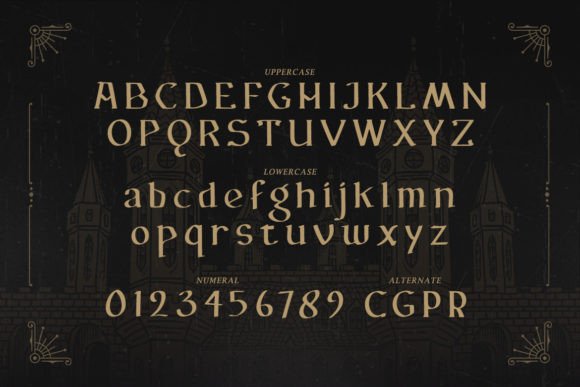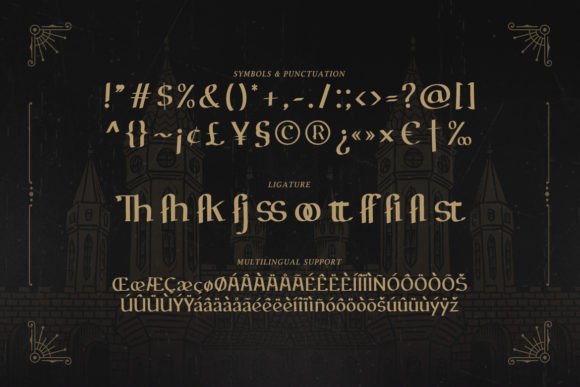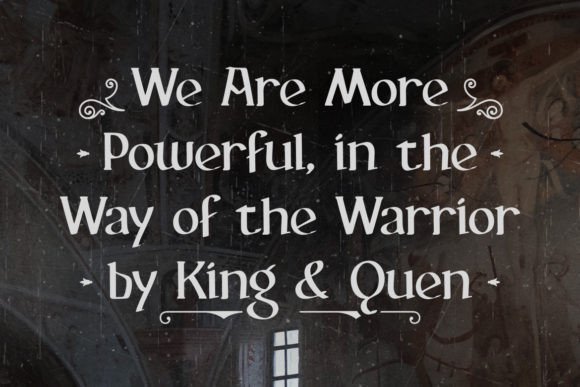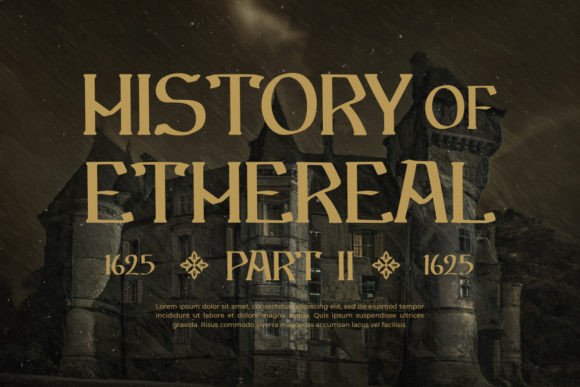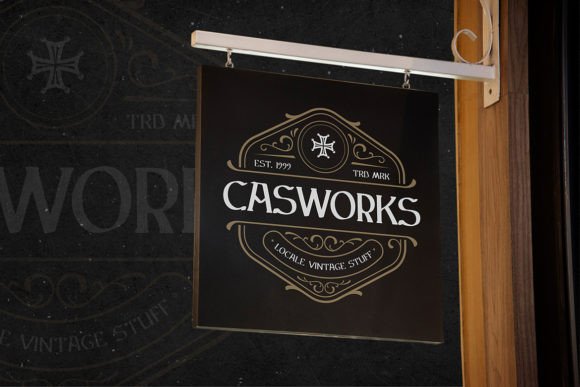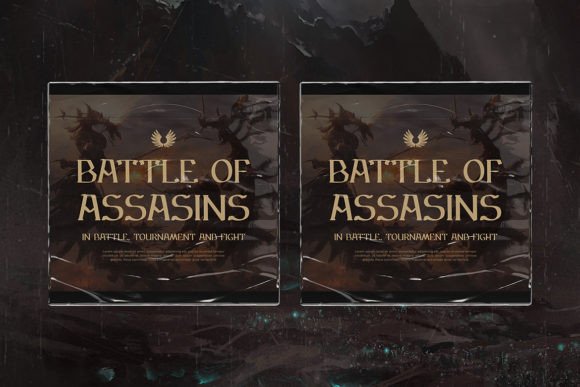
Introducing Bagil Font: A Medieval Display Typeface for Timeless Designs
Are you looking for a font that can add a touch of old-world elegance to your designs? Look no further than Bagil Font, a medieval display typeface that brings the charm and character of the Middle Ages to your projects. With its unique and intricate design, Bagil is perfect for designers and crafters who want to create striking and decorative designs that stand out from the crowd.
The Charm of the Middle Ages
Bagil Font is inspired by the medieval period, a time of grandeur and romance. The font features a distinctive design that is reminiscent of ancient manuscripts, illuminated letters, and ornate architectural details. Its intricate lines, flourishes, and curves evoke a sense of history and tradition, making it perfect for projects that require a touch of nostalgia and classic elegance.
A Versatile Font for Various Projects
Bagil is a versatile font that can be used for a wide range of projects, including:
• Book covers: Add a touch of medieval charm to your book covers with Bagil Font.
• Posters: Create eye-catching posters that stand out with Bagil’s striking design.
• Packaging: Use Bagil Font to add a touch of elegance to your product packaging.
• Logos: Create a memorable logo with Bagil’s unique and decorative design.
• And more: Bagil Font can be used for any project that requires a touch of old-world elegance and sophistication.
Key Features of Bagil Font
Here are some key features that make Bagil Font a great choice for designers and crafters:
• Unique and intricate design: Bagil Font features a distinctive design that is perfect for projects that require a touch of old-world elegance.
• Medieval inspiration: The font is inspired by the medieval period, making it perfect for projects that require a touch of history and tradition.
• Versatile: Bagil Font can be used for a wide range of projects, from book covers to logos.
Why Choose Bagil Font?
Here are some reasons why you should choose Bagil Font for your next project:
• Stand out from the crowd: Bagil Font’s striking design makes it perfect for projects that need to stand out and make an impact.
• Timeless elegance: The font’s medieval inspiration gives it a timeless elegance that will never go out of style.
• High-quality design: Bagil Font is designed to high standards, ensuring that it looks great in any project.
Tips for Using Bagil Font
Here are some tips for using Bagil Font in your projects:
• Use it sparingly: Bagil Font’s intricate design makes it perfect for headlines and titles. Use it sparingly to add emphasis and create visual interest.
• Pair it with a simple font: Pair Bagil Font with a simple font to create a striking contrast that adds visual interest to your design.
• Experiment with colors: Bagil Font looks great in a range of colors, from rich golds and reds to deep blues and greens. Experiment with different colors to find the perfect look for your project.
Bagil Font is a medieval display typeface that brings the charm and character of the Middle Ages to your designs. With its unique and intricate design, Bagil is perfect for designers and crafters who want to create striking and decorative designs that stand out from the crowd. Whether you’re working on a book cover, poster, packaging, logo, or any other project, Bagil Font is a great choice. So why not give it a try and see how it can add a touch of old-world elegance to your designs?